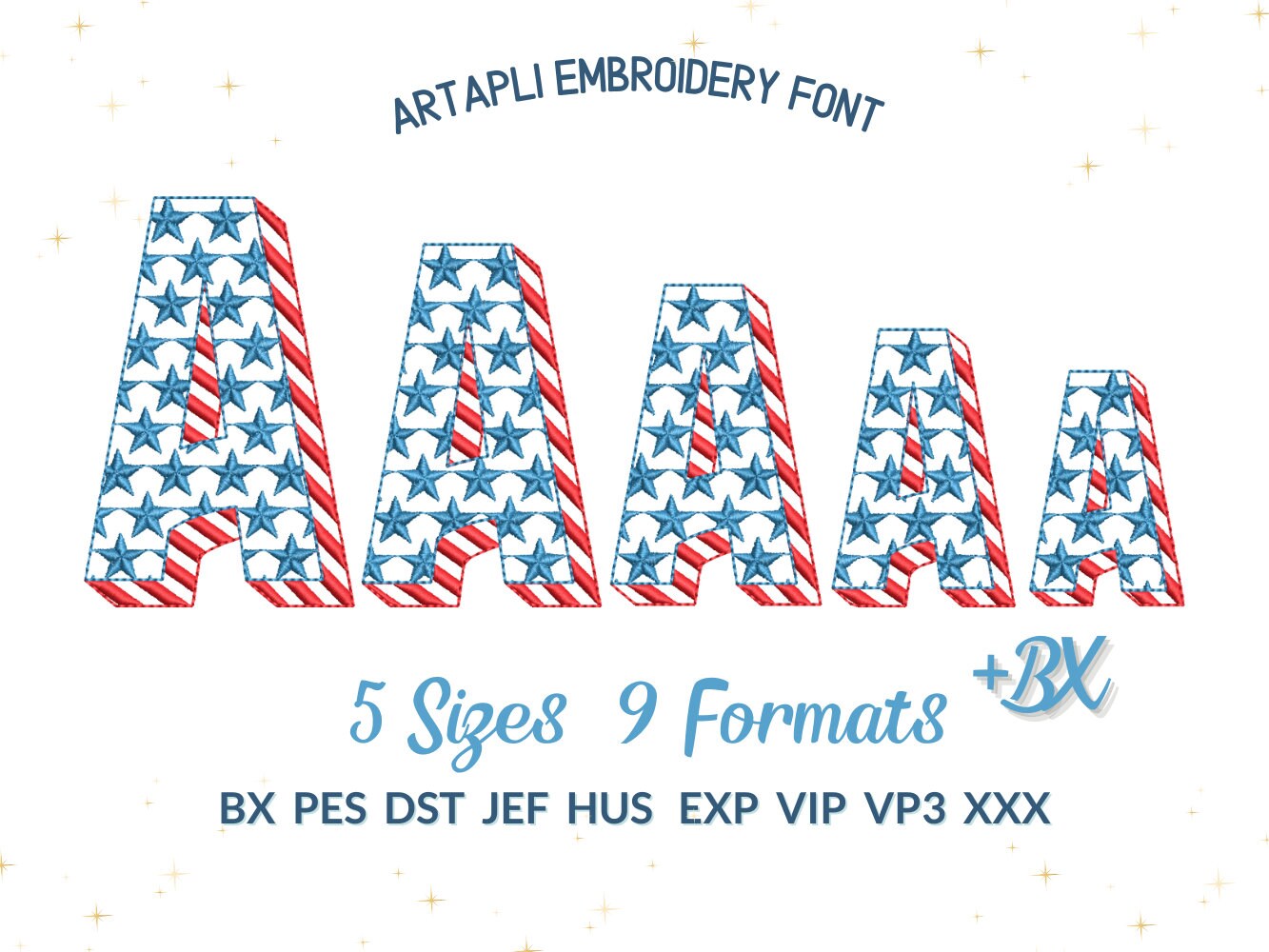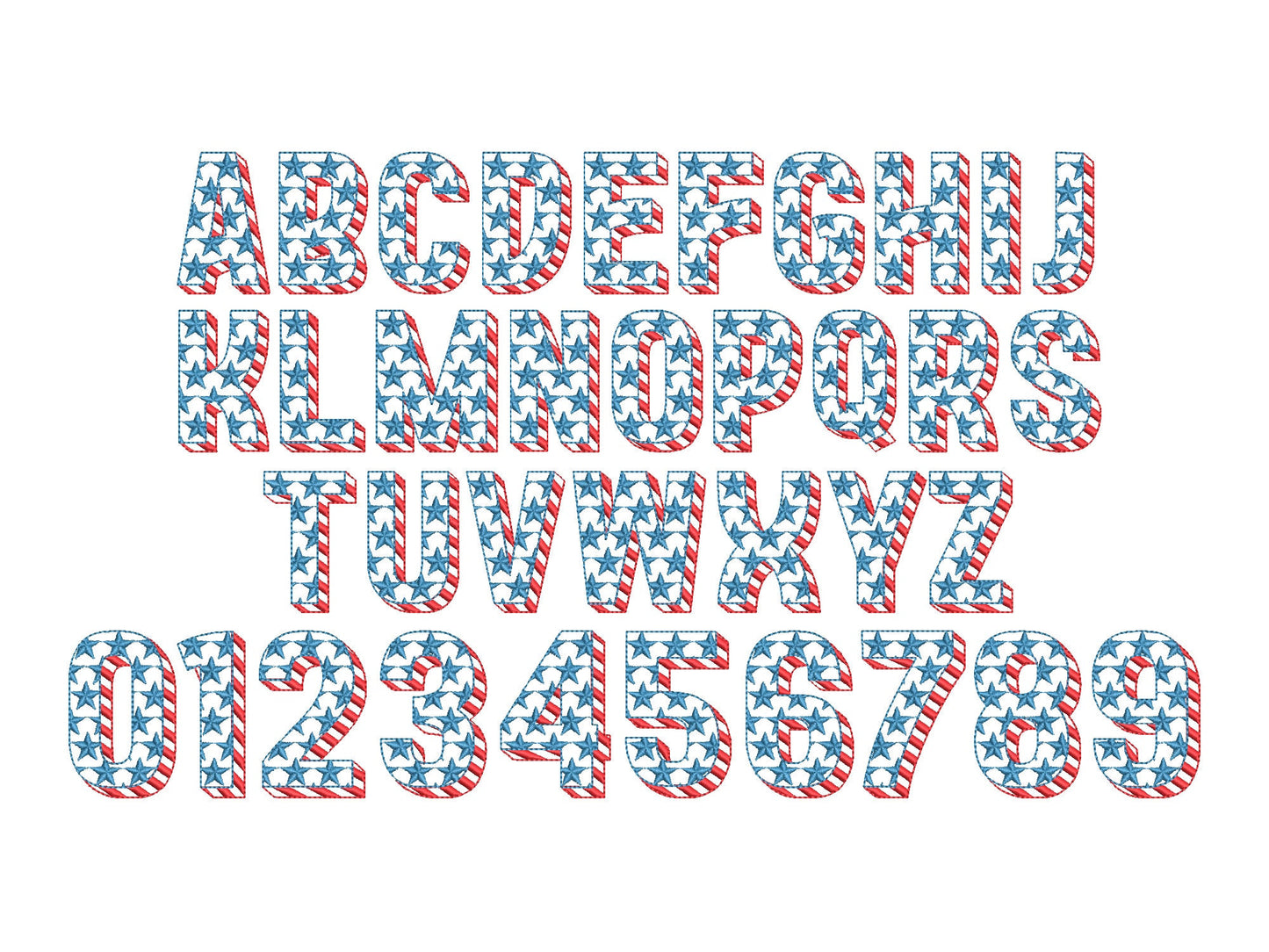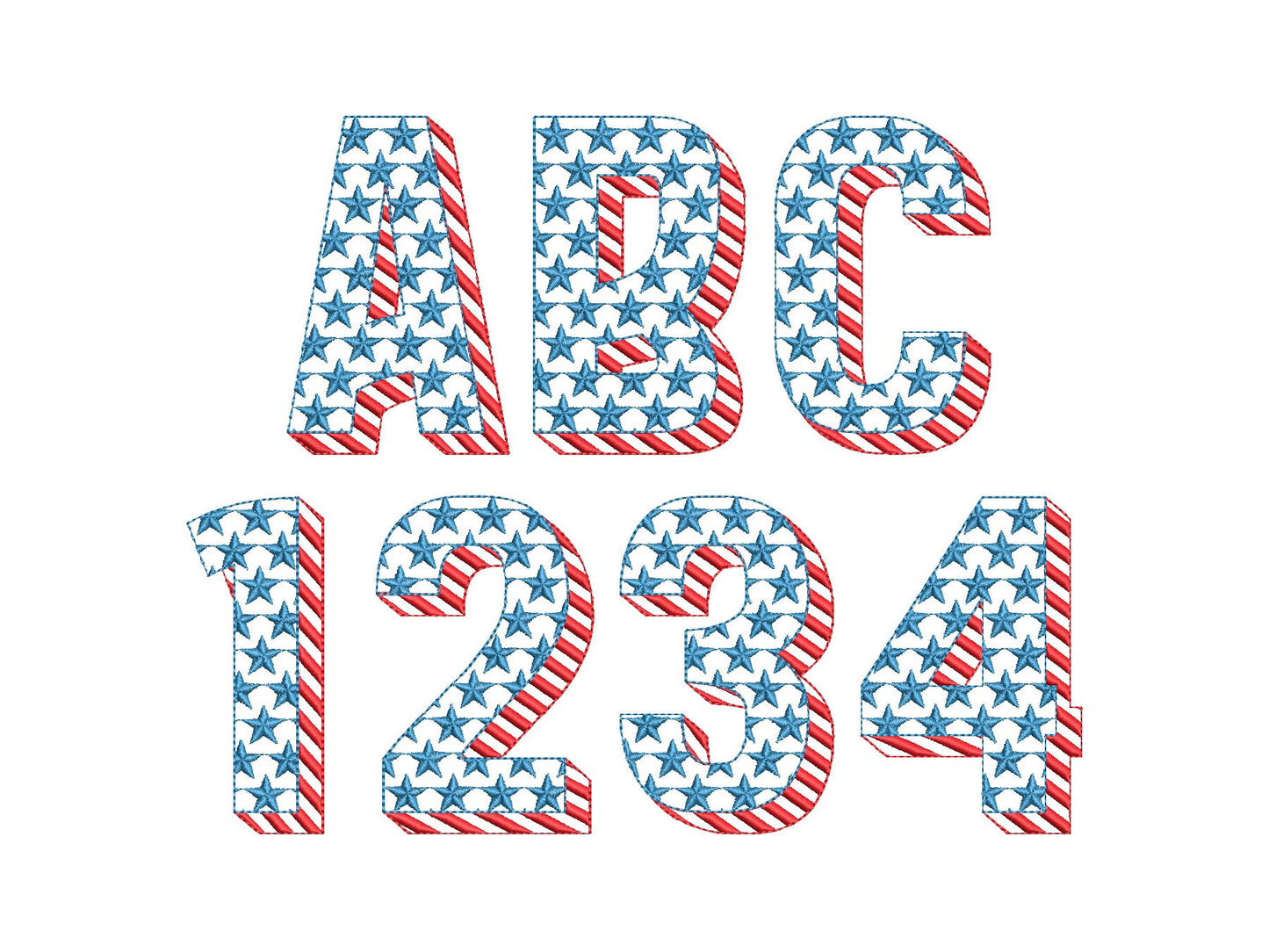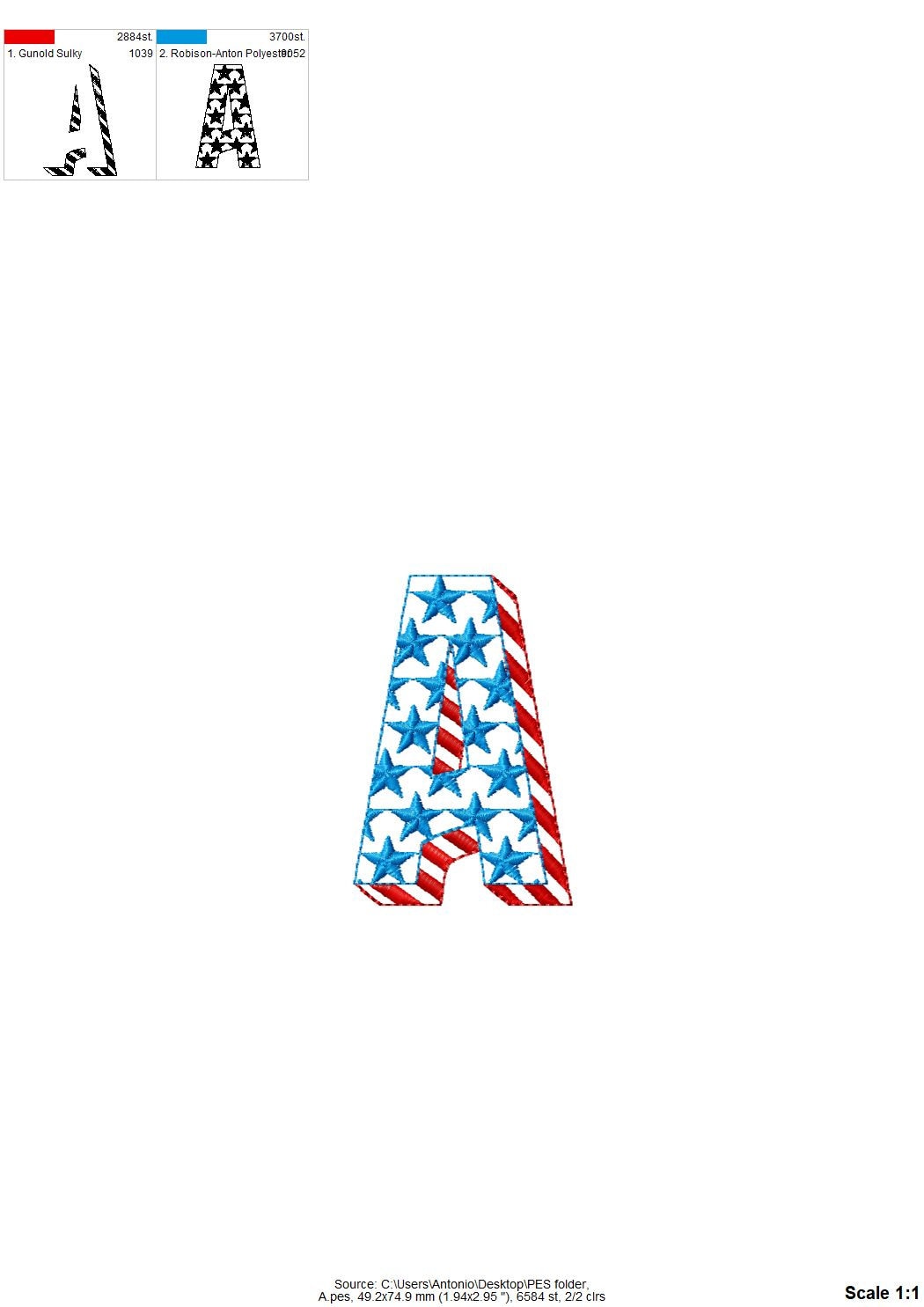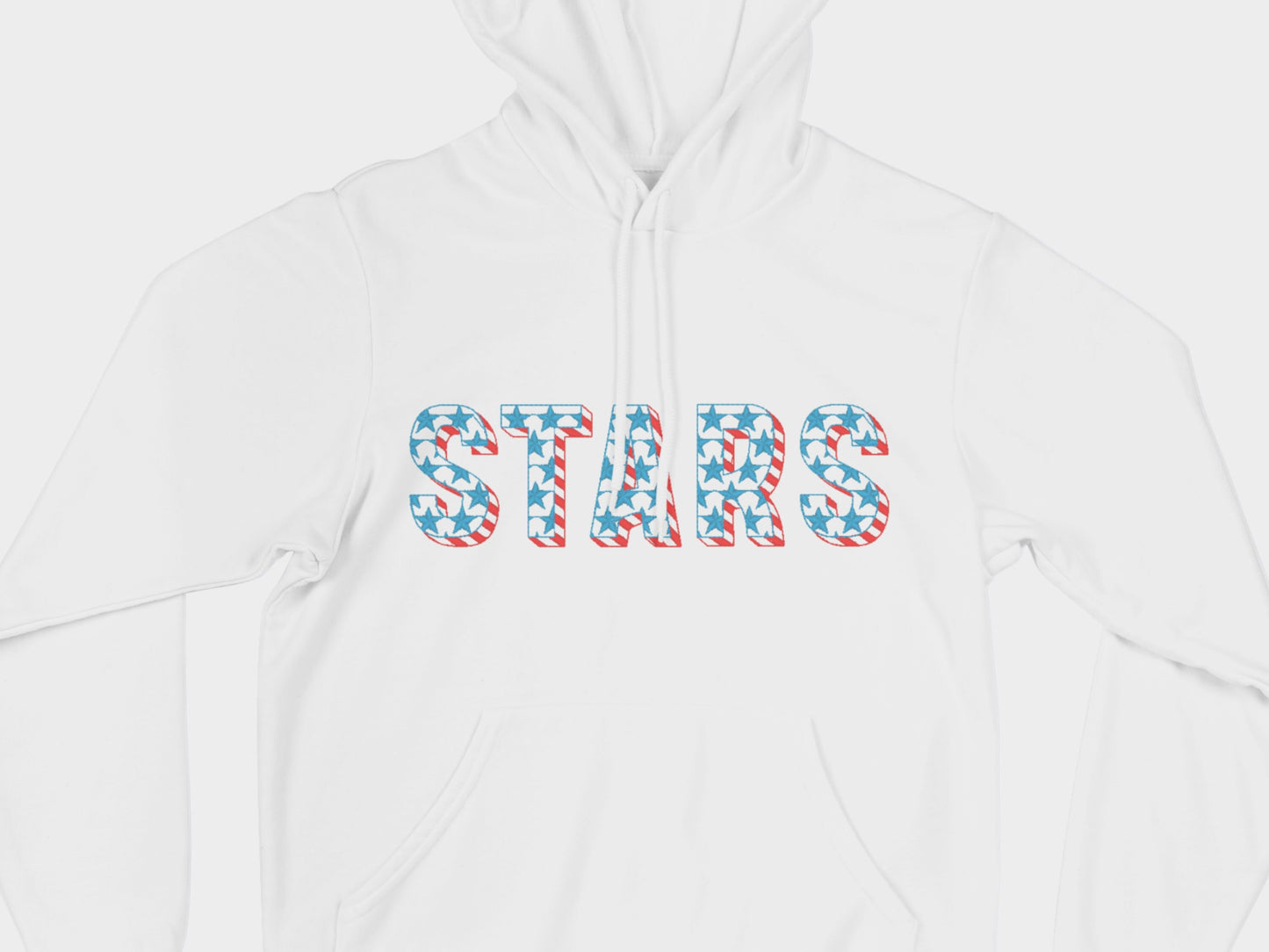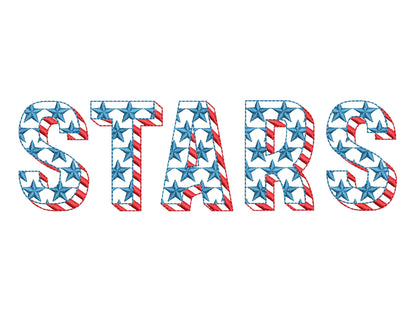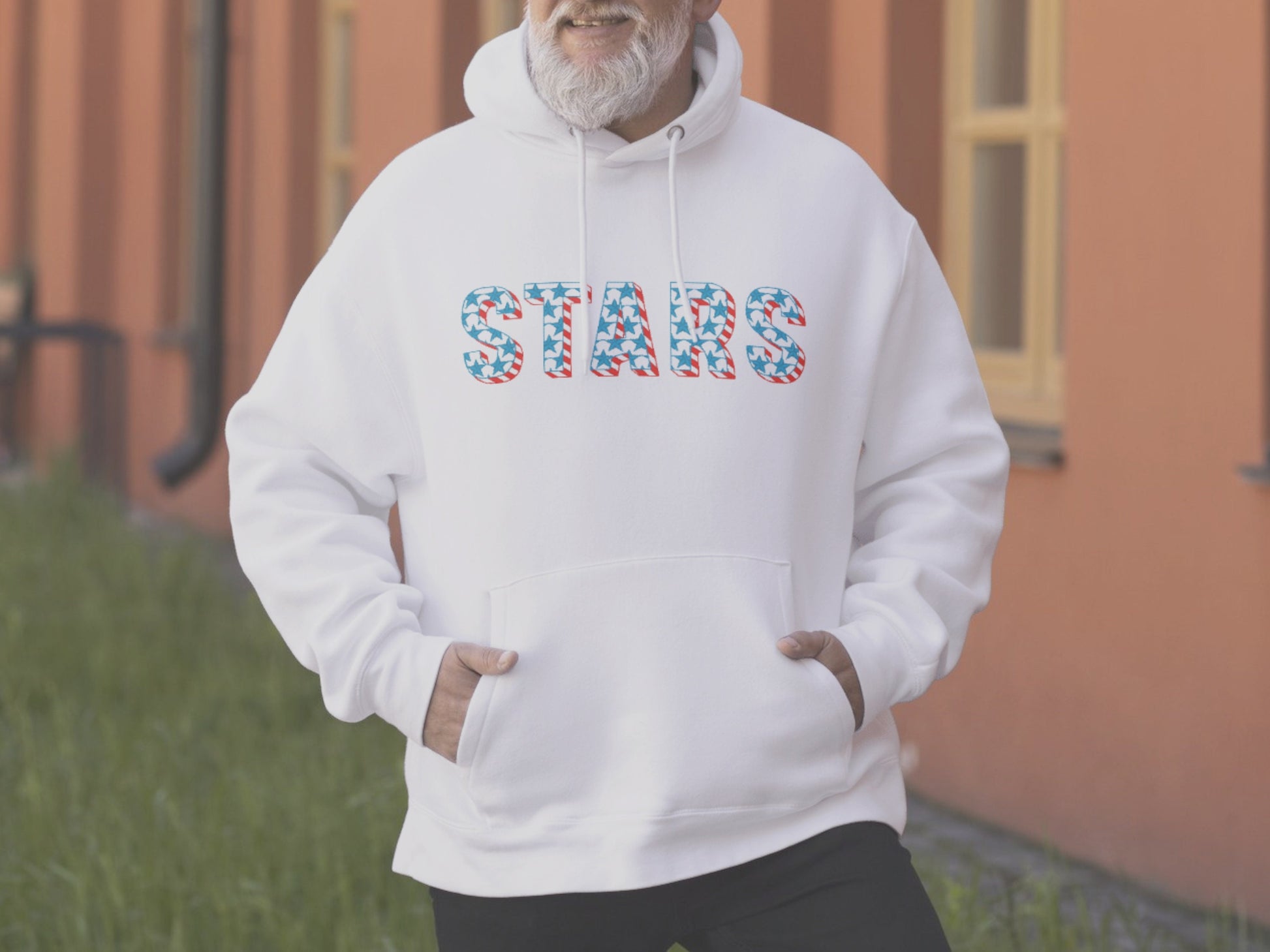
Shadow Patriotic Font
Or click to open the linkA patriotic block font with a shadow and stars and stripes, for Fourth of July shirts, names and numbers.
Uppercase A to Z and numbers 0 to 9 in five sizes: 2, 2.5, 3, 3.3 and 3.8 inches.
- Stars and stripes shadow block font
- Uppercase A-Z and numbers 0-9
- 5 sizes, 2 to 3.8 in